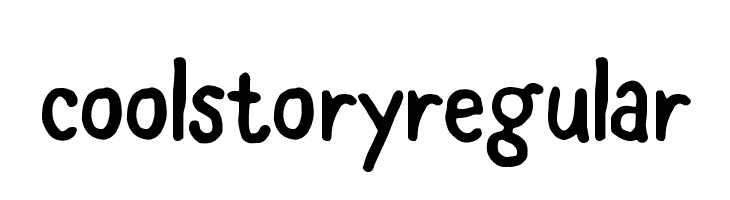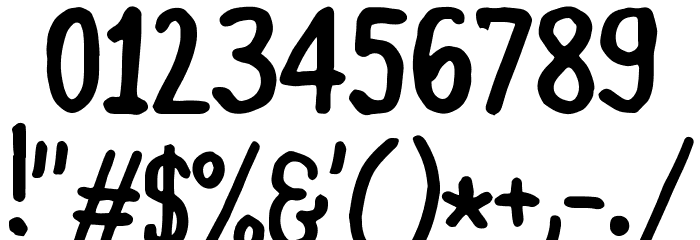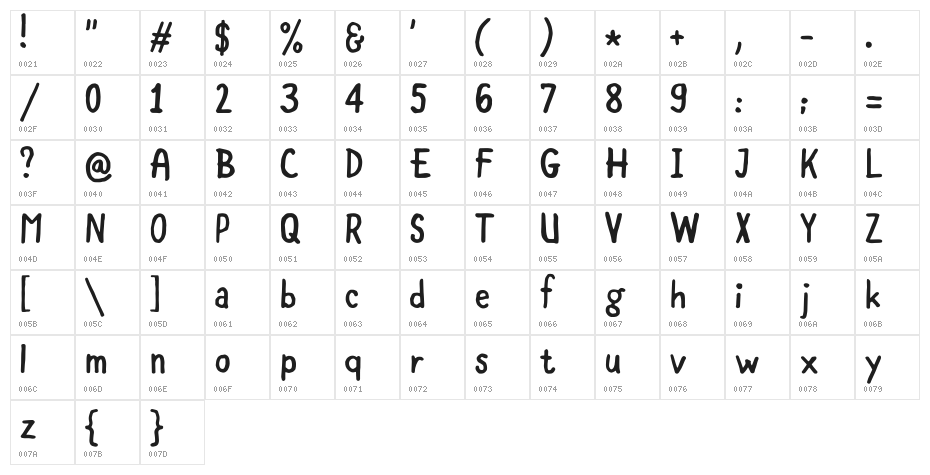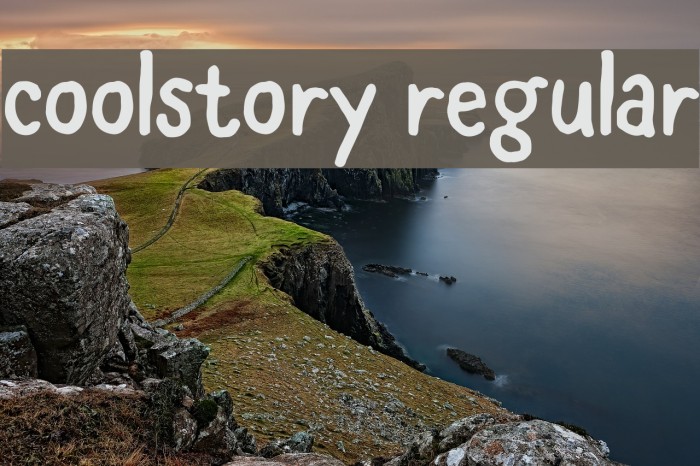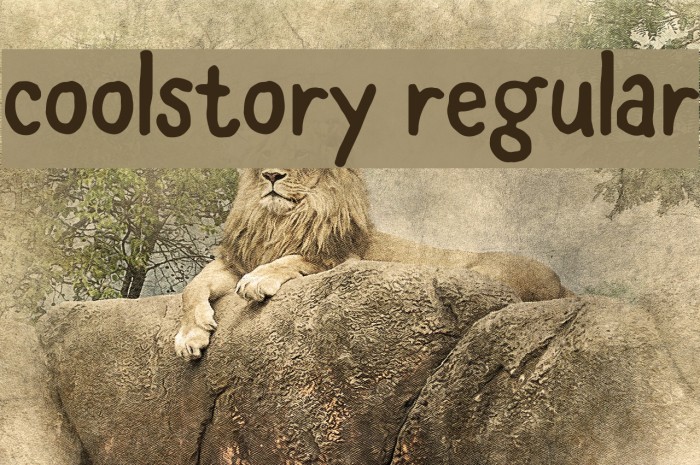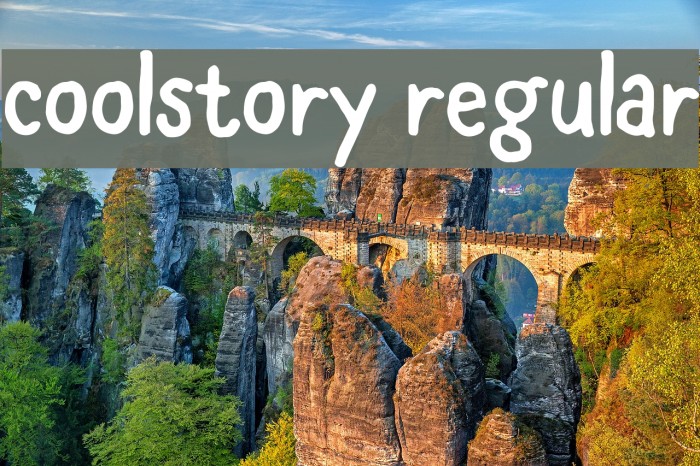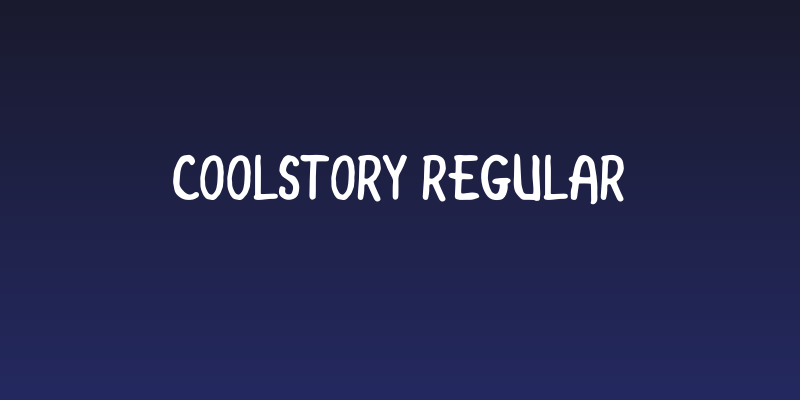
coolstory regular Font
coolstory regular Description
This font features a playful and informal style, characterized by its rounded and slightly irregular letterforms. The strokes are consistent in width, giving it a uniform appearance, while the slight variations in character shapes add a touch of whimsy. The uppercase and lowercase letters are well-balanced, with a friendly and approachable look. The numerals and special characters maintain the same playful aesthetic, making the font versatile for various creative projects. Its handwritten feel is perfect for conveying a casual and fun tone.
Overall StyleCasual
Use CaseHeadlines, Logos, Informal Text
Proposed ProjectsIdeal for children's books, greeting cards, playful branding, and casual social media graphics.